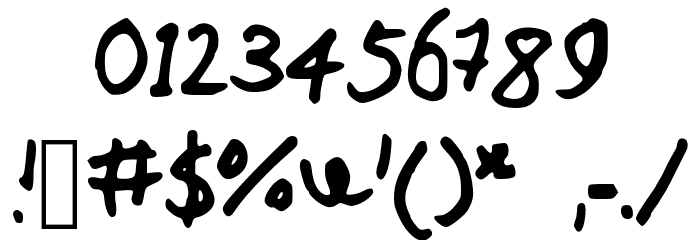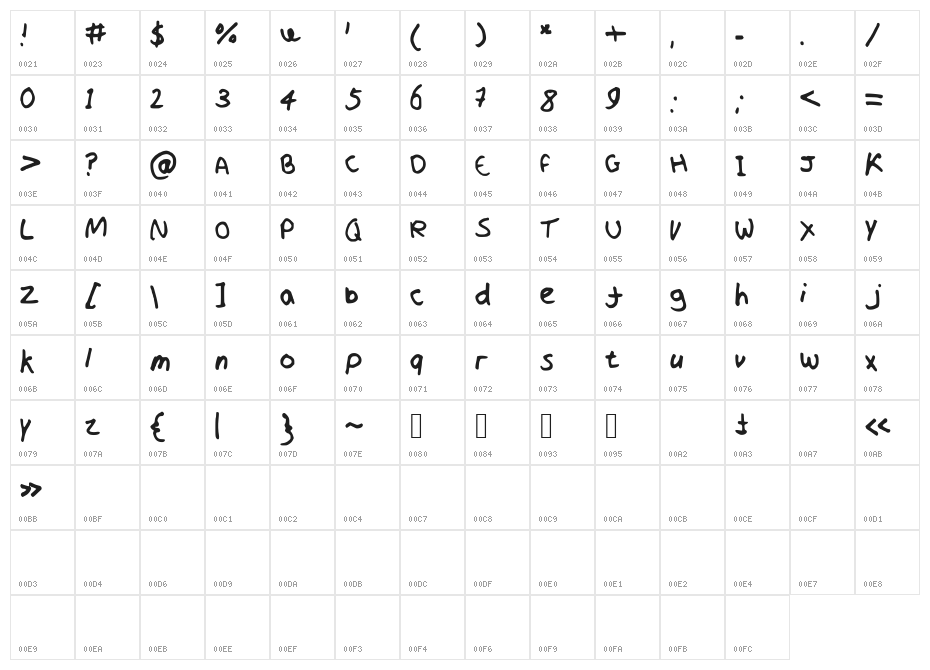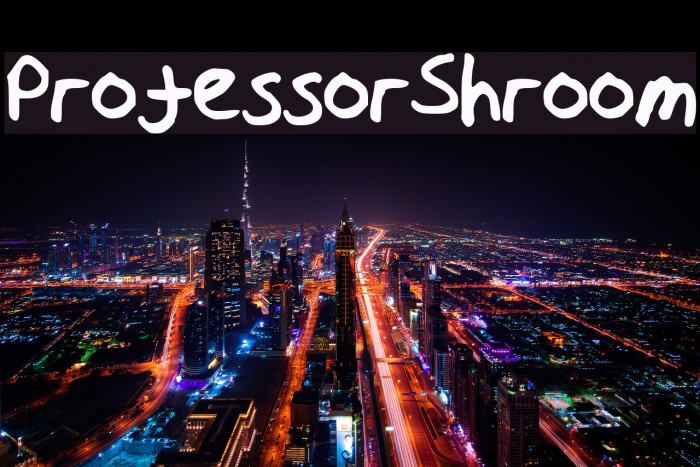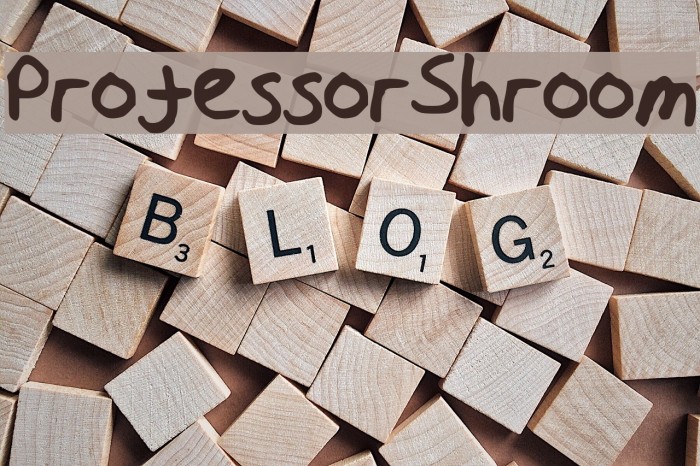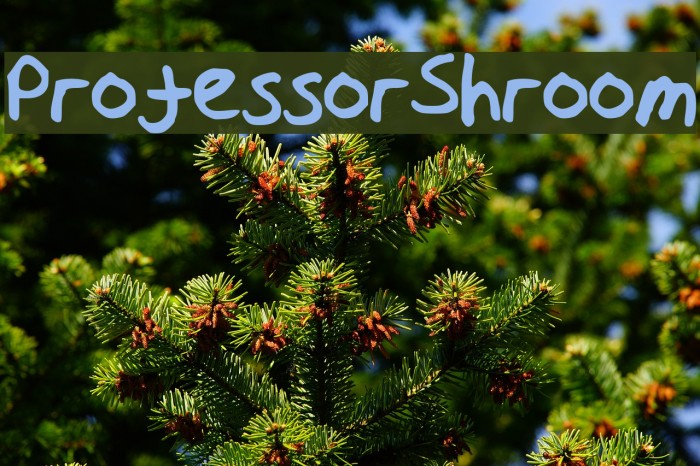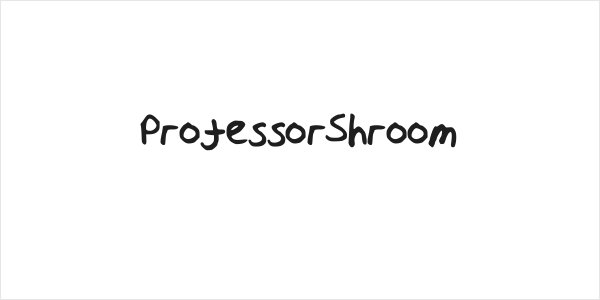
ProfessorShroom Font
This font features a playful and casual handwritten style, characterized by its rounded and slightly irregular letterforms. The strokes are bold and consistent, giving it a friendly and approachable appearance. The uppercase and lowercase letters maintain a uniform height, while the numbers and special characters are designed to complement the overall style. The font's informal nature makes it suitable for projects that require a personal touch, such as invitations, greeting cards, or children's book illustrations. Its legibility and charm make it versatile for various creative applications.
A playful, bold handwritten font with rounded, irregular letterforms.
• Proposed Projects: Ideal for invitations, greeting cards, children's books, and casual branding.